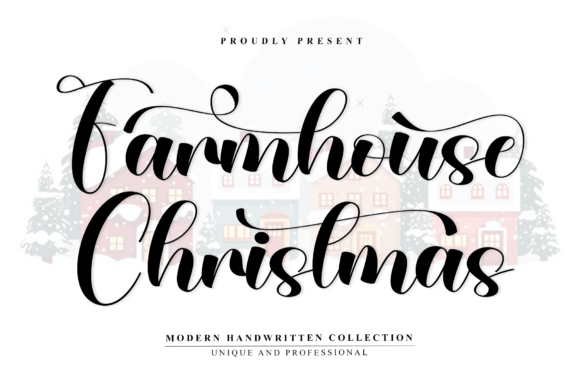
Introducing Farmhouse Christmas Font: A Sophisticated Handwritten Script Font
Are you looking for a font that exudes refined elegance and stylish flair for your Christmas designs? Look no further than the Farmhouse Christmas Font. This beautiful handwritten script font is perfect for adding a touch of sophistication and romance to your branding, invitations, stationery, packaging, and more.
What Makes Farmhouse Christmas Font So Special?
Farmhouse Christmas Font is a stunning example of a handwritten script font that radiates elegance and style. Its flowing curves and seamless connections capture the graceful rhythm of a calligrapher’s hand, making it a joy to use in any design project. The font’s harmonious balance of decorative swashes and clear letterforms makes it both beautiful and highly legible, perfect for a wide range of applications.
Key Features of Farmhouse Christmas Font
- Flowing Curves and Seamless Connections: The font’s flowing curves and seamless connections give it a natural, handwritten feel that is perfect for creating elegant and sophisticated designs.
- Harmonious Balance of Decorative Swashes and Clear Letterforms: The font’s decorative swashes and clear letterforms work together in harmony to create a beautiful and highly legible design.
- Subtle Contrast in Stroke Thickness: The font’s subtle contrast in stroke thickness adds movement and artistry, giving it a timeless quality that feels equally contemporary.
Perfect for a Wide Range of Design Projects
Farmhouse Christmas Font is perfect for a wide range of design projects, including:
- Branding: Use Farmhouse Christmas Font to create elegant and sophisticated branding materials, such as logos, business cards, and letterheads.
- Invitations: Create beautiful and elegant invitations for weddings, parties, and other special occasions.
- Stationery: Use Farmhouse Christmas Font to create stylish and sophisticated stationery, such as notebooks, journals, and greeting cards.
- Packaging: Add a touch of elegance and sophistication to your packaging designs with Farmhouse Christmas Font.
Why Choose Farmhouse Christmas Font?
There are many reasons why you should choose Farmhouse Christmas Font for your design projects. Here are just a few:
- Elegant and Sophisticated: Farmhouse Christmas Font is a truly elegant and sophisticated font that will add a touch of refinement to any design.
- Highly Legible: The font’s clear letterforms and harmonious balance of decorative swashes make it highly legible, even at small sizes.
- Versatile: Farmhouse Christmas Font is perfect for a wide range of design projects, from branding and invitations to stationery and packaging.
Tips for Using Farmhouse Christmas Font
Here are a few tips for using Farmhouse Christmas Font in your design projects:
- Use it as a Title Font: Farmhouse Christmas Font is perfect for use as a title font, adding a touch of elegance and sophistication to your designs.
- Pair it with Other Fonts: Farmhouse Christmas Font pairs well with other fonts, such as sans-serif fonts and serif fonts.
- Experiment with Different Sizes: Farmhouse Christmas Font looks great at a wide range of sizes, from small and delicate to large and bold.
- Take Advantage of Swashes and Decorative Elements: The font includes a range of swashes and decorative elements, so be sure to take advantage of these to add a touch of elegance and sophistication to your designs.
Farmhouse Christmas Font is a truly exceptional handwritten script font that is perfect for adding a touch of elegance and sophistication to your design projects. With its flowing curves, seamless connections, and harmonious balance of decorative swashes and clear letterforms, it is a joy to use and highly legible. Whether you’re looking to create branding materials, invitations, stationery, packaging, or any other type of design, Farmhouse Christmas Font is a great choice.